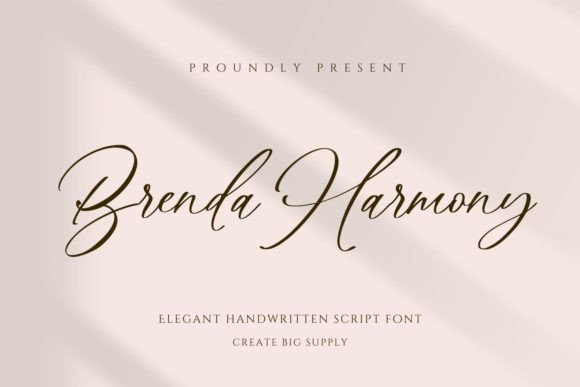
Step into the world of Brenda Harmony Font, an enchanting script font that will captivate your senses and add an aura of elegance to your creative ventures. Experience the beauty of perfectly formed letters that dance upon the page, bringing life to your words. With its graceful curves and timeless charm, Brenda Harmony is the perfect font for crafting exquisite wedding invitations that will leave a lasting impression. Create personalized stationary art that reflects your unique style and personality. Transform your social media presence with captivating posts that stand out from the crowd.
Explore the limitless possibilities of Brenda Harmony, a font that complements any creative project. Its full character set boasts uppercase and lowercase letters, numbers, punctuations, ligatures, and multilingual support, ensuring versatility and inclusivity. Unleash your imagination and utilize the PUA encoding to effortlessly access all the amazing glyphs and ligatures, unlocking a world of creative expressions.
Brenda Harmony is your passport to sophistication, adding a touch of class to your designs. It's the perfect font for crafting elegant logos, stylish branding materials, and website designs that exude professionalism. Embrace the power of Brenda Harmony today and watch your creative visions flourish.